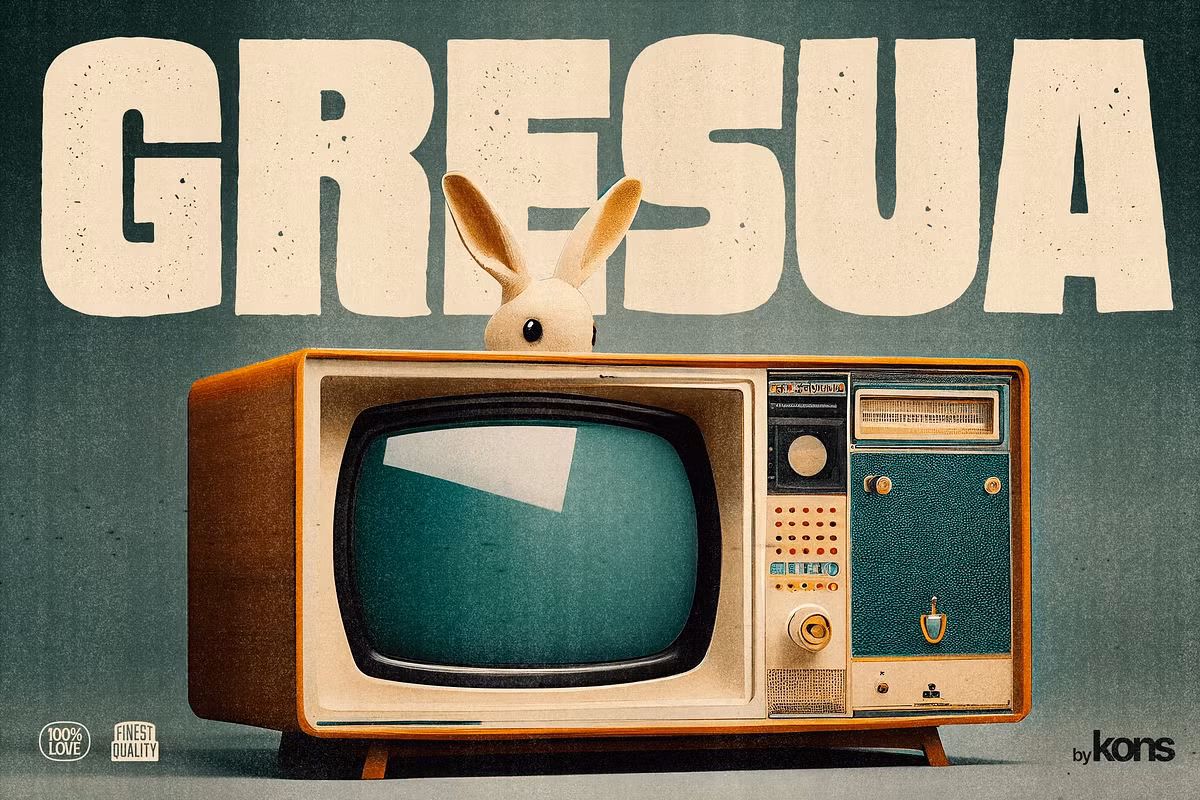
Gresua - Organic Bold Fonts Free Download
Gresua – Organic Bold Fonts Free Download is a bold and earthy typeface that blends natural curves with confident weight for a fresh, handcrafted look. Please note, you are required to purchase this font for commercial use. It is available for free download for testing and personal projects only.
Perfect for eco-conscious branding, packaging, posters, social media graphics, and lifestyle products, Gresua offers a strong presence while maintaining an organic, approachable tone. Its rounded edges and subtle irregularities give it a natural charm that stands out without overpowering.